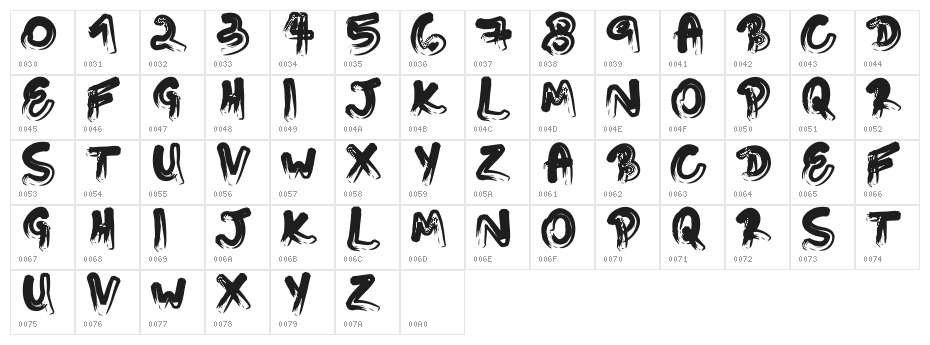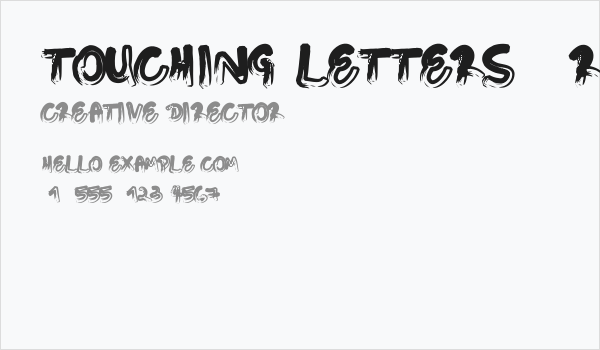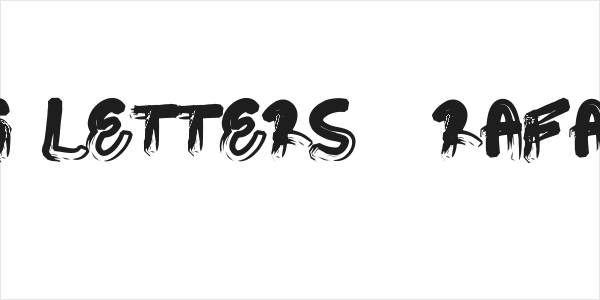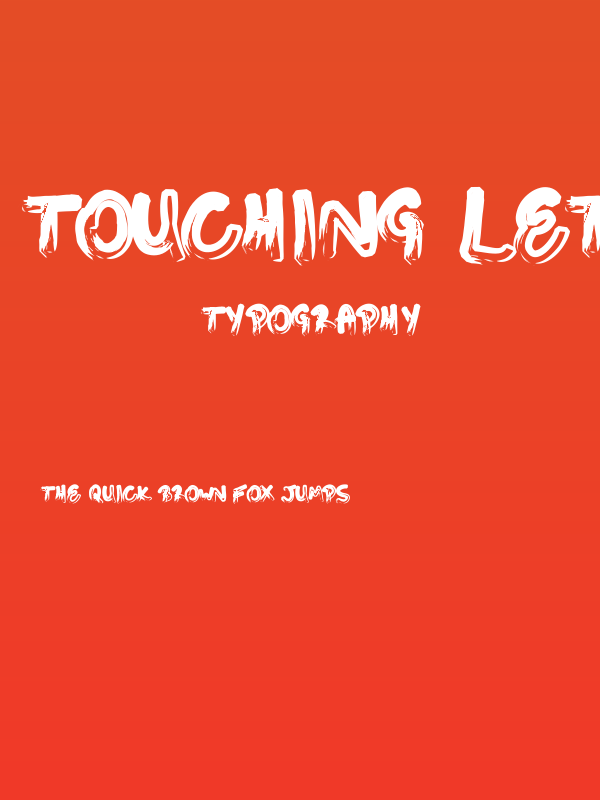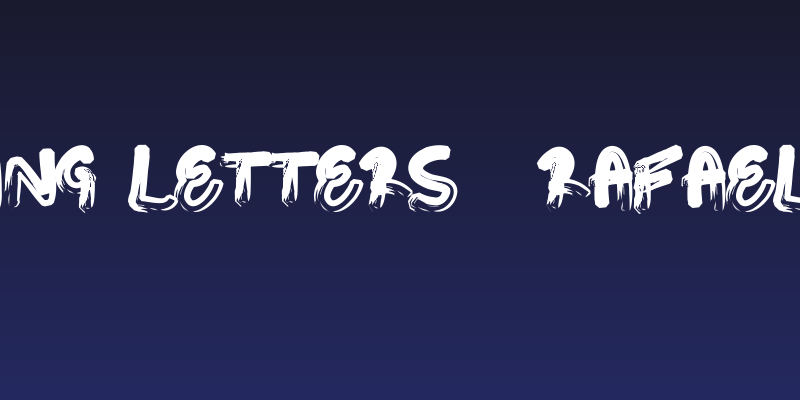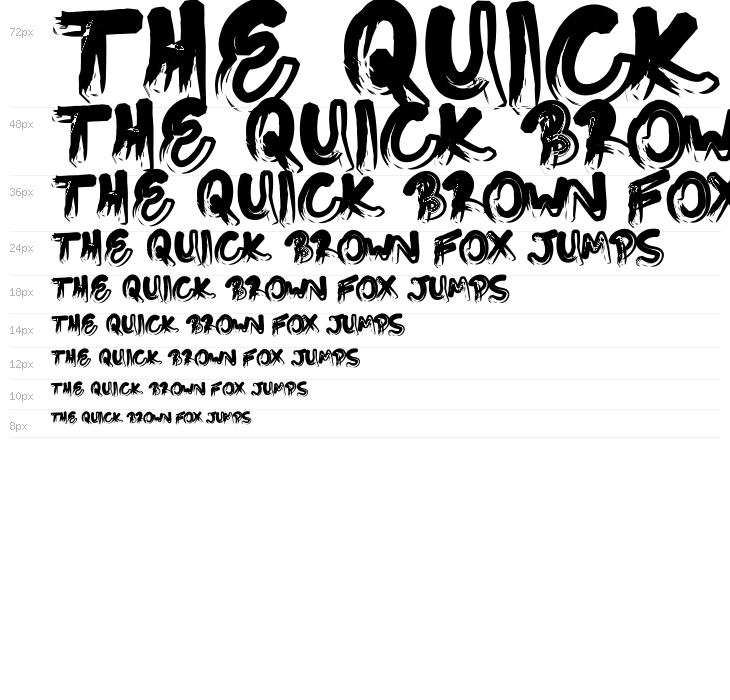
Touching Letters / RafaelTakeo Font
Touching Letters / RafaelTakeo Description
This font features a bold, expressive style with a brush-like texture that gives it a dynamic and artistic appearance. The characters are crafted with uneven strokes, creating a sense of movement and energy. The uppercase and lowercase letters maintain a consistent style, with each character exhibiting unique variations in stroke width and texture. The numbers and special characters follow the same artistic theme, ensuring a cohesive look across all glyphs. This font is ideal for projects that require a bold and creative touch, such as posters, album covers, or artistic branding.
| Overall Style | Artistic, Dynamic |
| Use Case | Headlines, Logos, Artistic projects |
| Proposed Projects | Ideal for posters, album covers, artistic branding, and creative displays. |